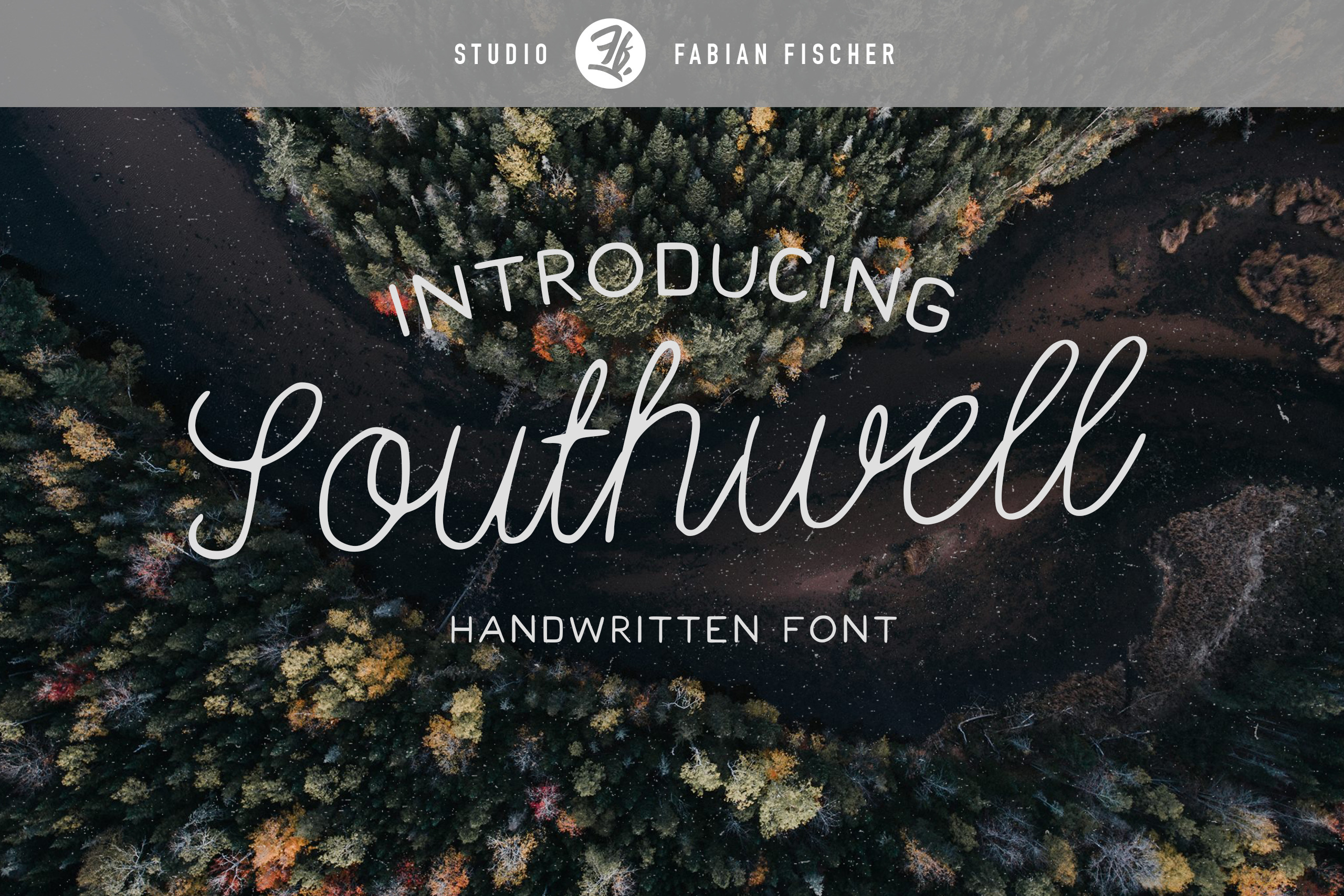
Southwell - Handmade Font
Southwell is a classic monoline cursive script font. This typeface includes all uppercase and lowercase letters. It works great for both modern and vintage style work. Great for getting that handcrafted look you've been looking for!
Use Southwell script in a range of items like packaging, posters, logotypes, branding, book covers, magazines, wedding stationery and much more.